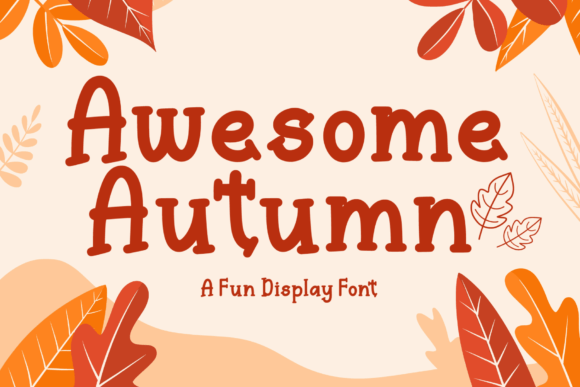
Fall in Love with Awesome Autumn: A Fun Hand-Lettered Font
It’s autumn, and you know what that means: cozy sweaters, warm lattes, and a burst of creative energy. As designers, crafters, and creative hobbyists, we’re always on the lookout for fonts that capture the essence of the season. I recently found myself working on a project, struggling to find the perfect font to convey the playful, autumnal vibe I had in mind. That’s when I stumbled upon Awesome Autumn, a hand-lettered fall font that’s been a game-changer for my designs.
My Honest Review of Awesome Autumn
So, what do I love about Awesome Autumn? Here are a few things that make this font stand out:
- ✨ Playful and fun: Awesome Autumn has a carefree, hand-lettered feel that’s perfect for autumn-themed projects.
- ✅ Versatile: This font is suitable for a wide range of applications, from social media graphics to greeting cards and birthday invitations.
- 💻 Easy to use: Awesome Autumn includes basic punctuation marks and international characters, making it a breeze to work with.
Of course, no font is perfect, and there are a few small quirks to keep in mind:
- 🤔 Limited formal options: As a hand-lettered font, Awesome Autumn is best suited for informal, playful designs.
- ⚠️ No built-in bold or italic variations: You’ll need to rely on font styles or manual adjustments to achieve different effects.
- Experiment with OpenType features, such as glyphs and stylistic alternates, to add visual interest to your design.
- In the Character panel, look for the OpenType menu and explore the available glyphs and stylistic alternates.
The Story Behind Awesome Autumn
Imagine a designer, sitting by a cozy window on a crisp autumn morning, surrounded by fallen leaves and warm lighting. This is where the inspiration for Awesome Autumn was born – a desire to capture the carefree, playful essence of the season in a hand-lettered font. The designer aimed to create a font that’s both fun and versatile, perfect for a wide range of creative projects.
Q: Is Awesome Autumn suitable for body text?
A: While Awesome Autumn is a beautiful font, it’s best suited for headings, titles, and short paragraphs. For body text, you may prefer a more traditional serif or sans-serif font.